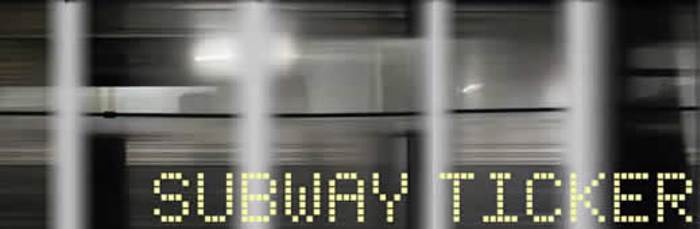
Subway Ticker Font
Subway Ticker is based on a 5×7 grid, electronic display observed on a New York subway train in February 2005 en route to Coney Island.